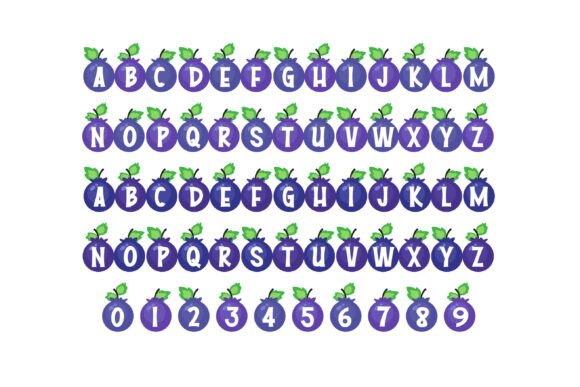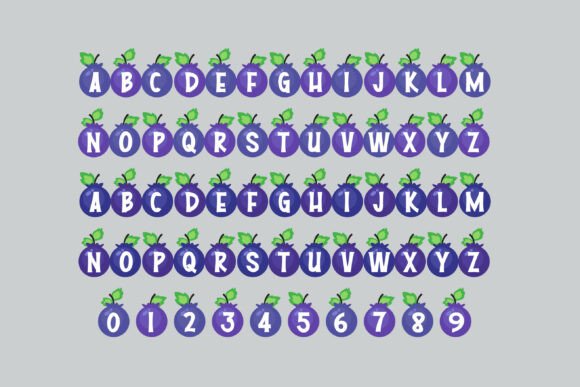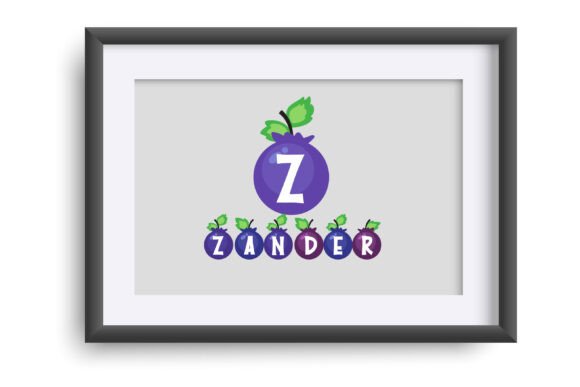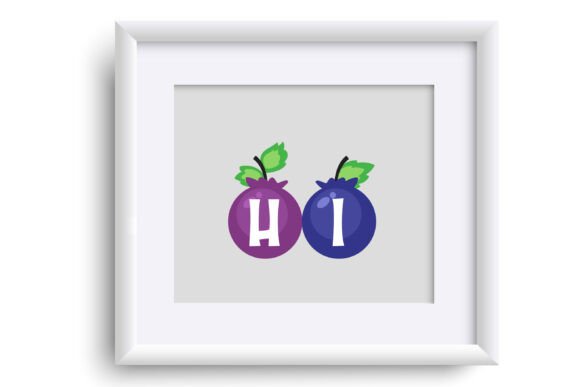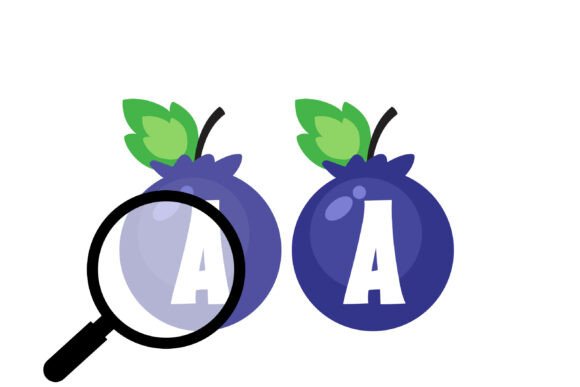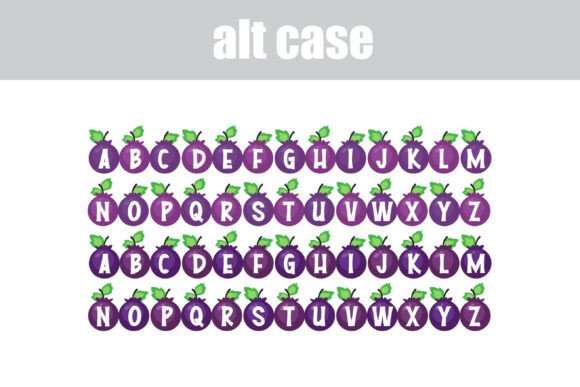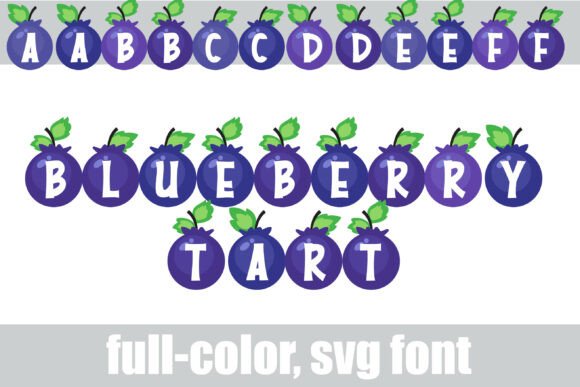
Introducing Blueberry Tart: A Vibrant Berry SVG Font
Are you looking for a unique and eye-catching font to add a touch of sweetness to your projects? Look no further than Blueberry Tart, a full-color SVG font that captures the vibrant energy of summer berries. This bold and playful typeface is perfect for designers and crafters who want to infuse their work with a sense of artisanal charm and freshness.
What is Blueberry Tart?
Blueberry Tart is a full-color SVG font that features bold, white sans-serif letters set inside plump, deep purple blueberry icons. Each character is complete with illustrative green leaves and tiny stems, giving it a delightful and whimsical feel. The consistent icon-style format makes it an extraordinary choice for a variety of projects, from artisanal jam labels to children’s birthday invitations.
Key Features of Blueberry Tart
- Full-color SVG font: Blueberry Tart is a vibrant and colorful font that preserves its vivid purple hues and clean illustrative details in every character.
- Bold and playful design: The font features bold, white sans-serif letters set inside plump, deep purple blueberry icons, giving it a fun and lively feel.
- Illustrative details: Each character is complete with green leaves and tiny stems, adding a touch of realism and charm to the font.
- Consistent icon-style format: The font features a consistent design throughout, making it perfect for projects that require a cohesive look.
Blueberry Tart is an incredibly versatile font that can be used for a wide range of projects, including:
- Artisanal jam labels: Add a touch of sweetness to your homemade jam labels with this charming font.
- Bakery menus: Use Blueberry Tart to create eye-catching bakery menus that showcase your delicious treats.
- Children’s birthday invitations: Create fun and playful birthday invitations that will delight kids and parents alike.
- Berry-themed apparel branding: Use Blueberry Tart to create branded apparel that showcases your love of berries.
Benefits of Using Blueberry Tart
By using Blueberry Tart, designers and crafters can add a unique and eye-catching touch to their projects. The font’s bold and playful design makes it perfect for projects that require a sense of fun and whimsy. Additionally, the font’s consistent icon-style format makes it easy to use and customize.
Tips for Using Blueberry Tart
- Experiment with different colors: While the font’s default colors are vibrant and eye-catching, don’t be afraid to experiment with different colors to match your brand or project’s aesthetic.
- Use it in combination with other fonts: Blueberry Tart can be used in combination with other fonts to create a unique and visually appealing design.
- Customize the font to fit your needs: As an SVG font, Blueberry Tart can be customized to fit your specific needs. Experiment with different sizes, colors, and styles to create a unique look.
Blueberry Tart is a vibrant and playful SVG font that is perfect for designers and crafters who want to add a touch of sweetness to their projects. With its bold and playful design, consistent icon-style format, and full-color SVG features, this font is sure to delight. Whether you’re creating artisanal jam labels, bakery menus, children’s birthday invitations, or berry-themed apparel branding, Blueberry Tart is the perfect choice.